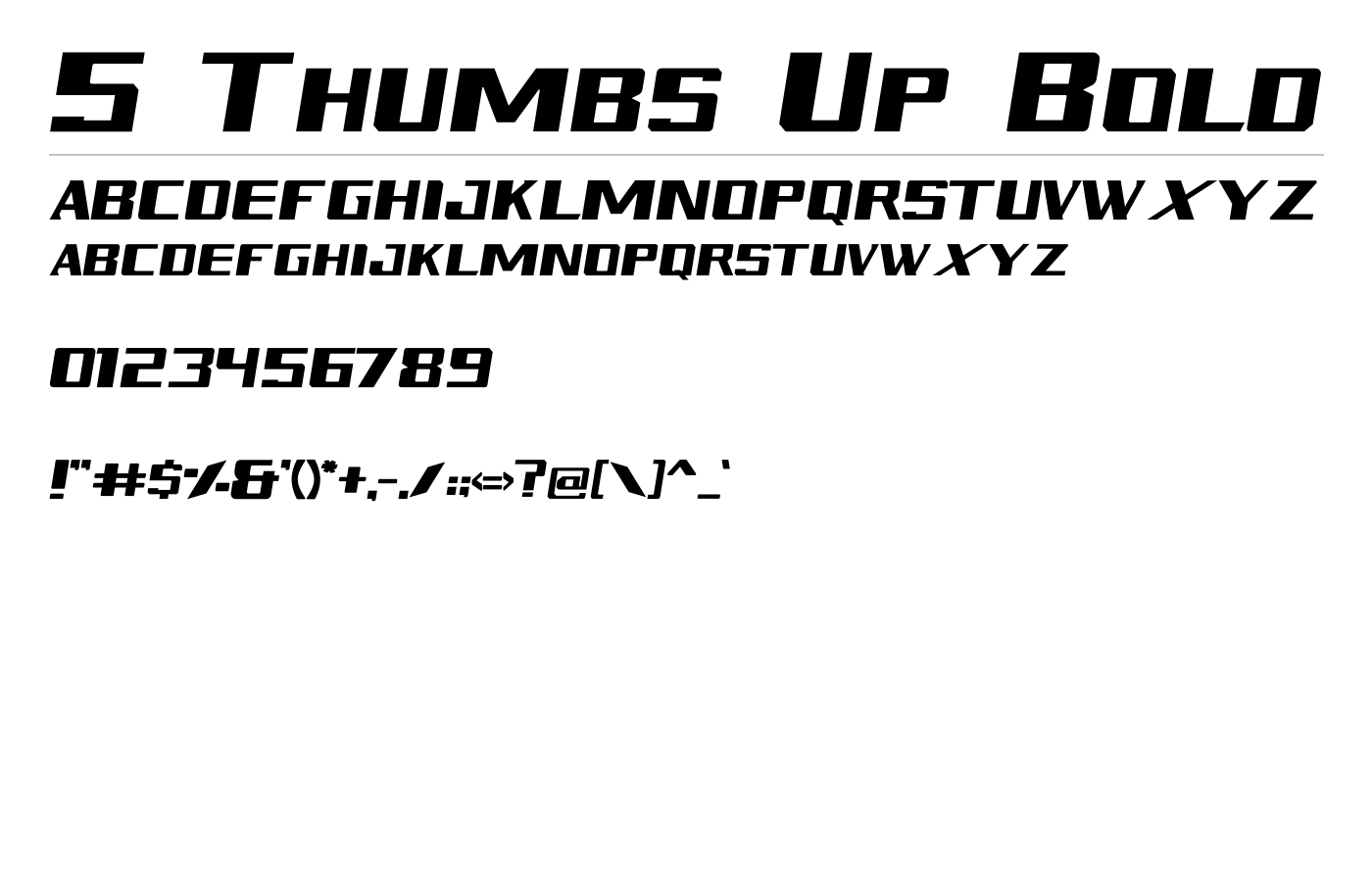
5 Thumbs Up Bold is a dynamic, bold sans serif font with a strong, modern personality. Its angular letterforms and slight forward slant give it an energetic and sporty feel, ideal for headlines, logos, and branding that demand attention and convey confidence. This font works particularly well in designs related to sports, technology, and youth culture, where a bold and edgy look is key.
5 Thumbs Up Bold Font